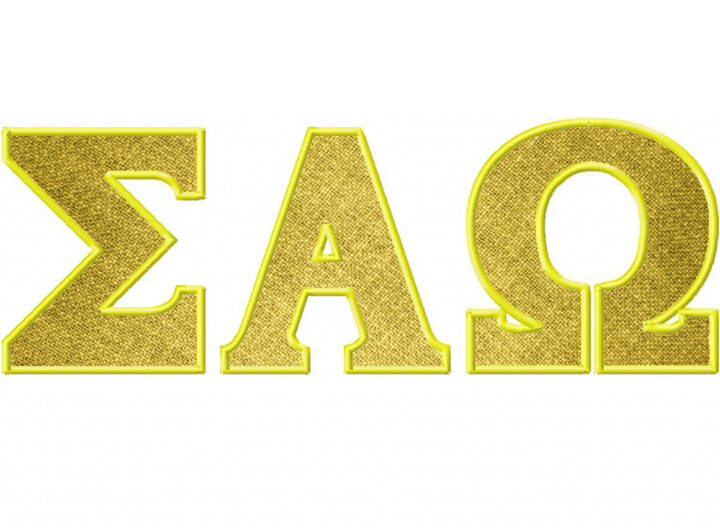
Add this fascinating design to any project that needs a bit of unusual edge!
The Greek Letters Machine Embroidery Applique Font Set includes all Uppercase Letters, Lowercase Letters and Numbers in all of the following sizes: 3″ 4″ & 5″